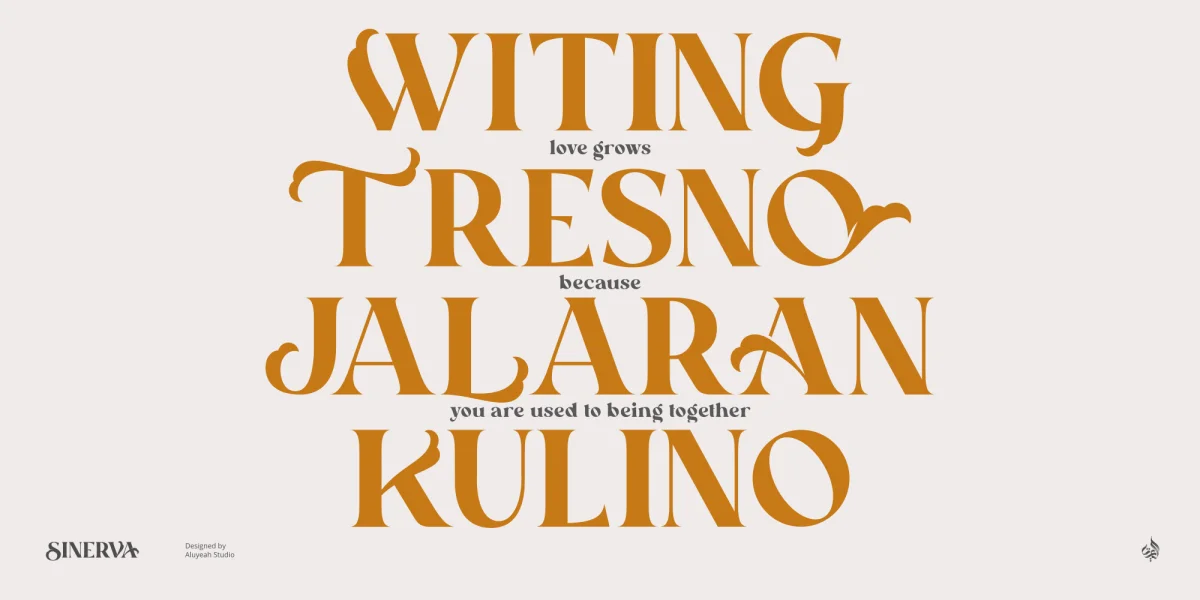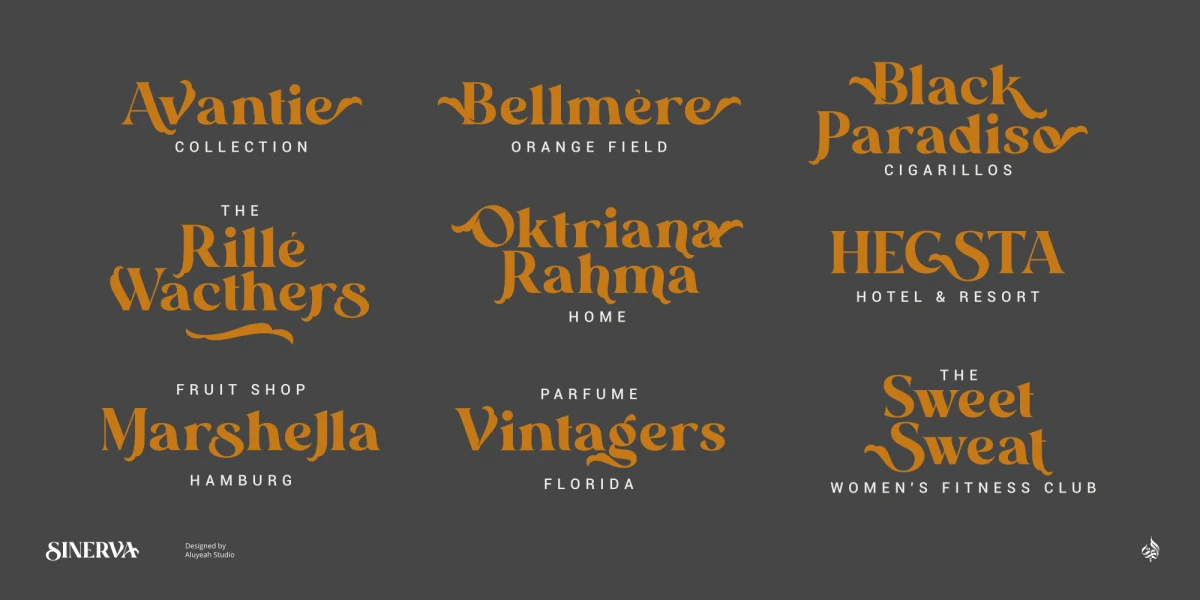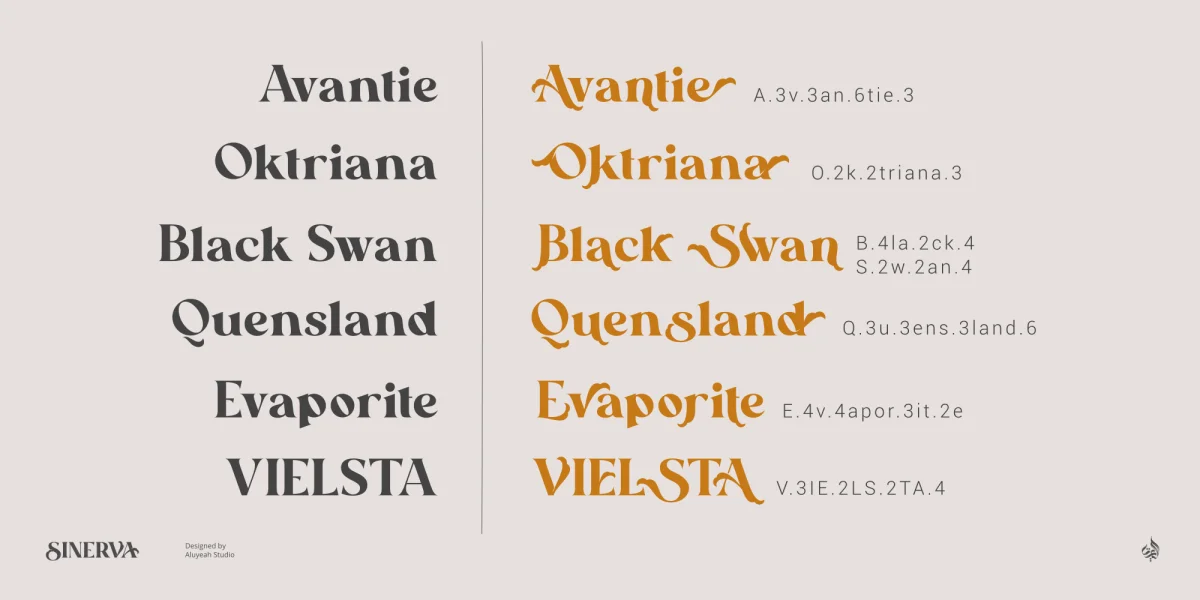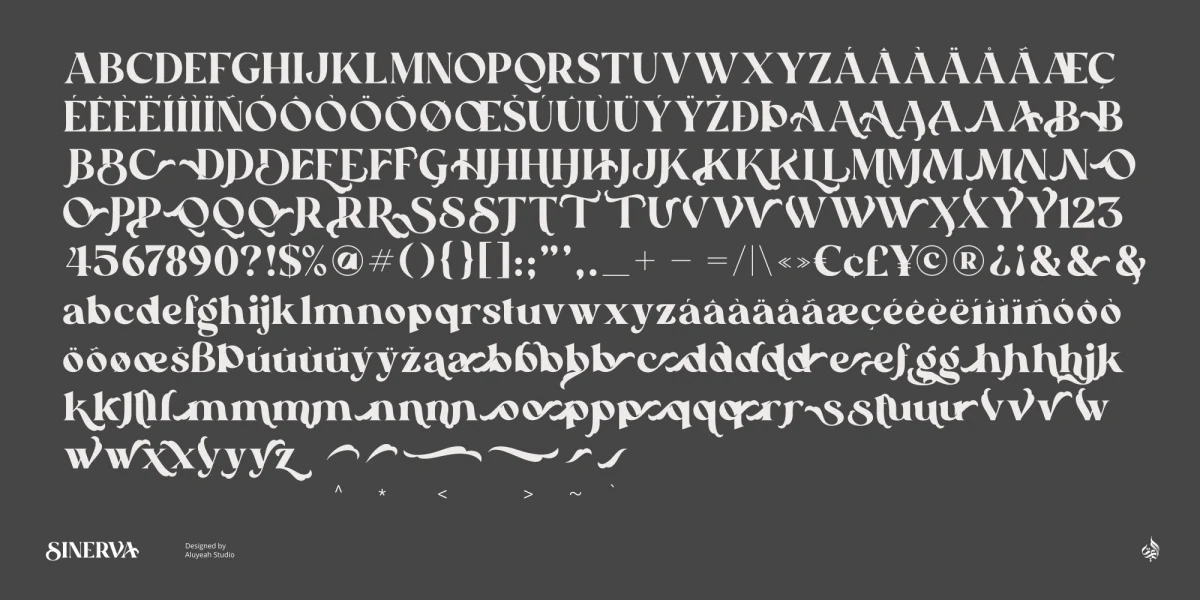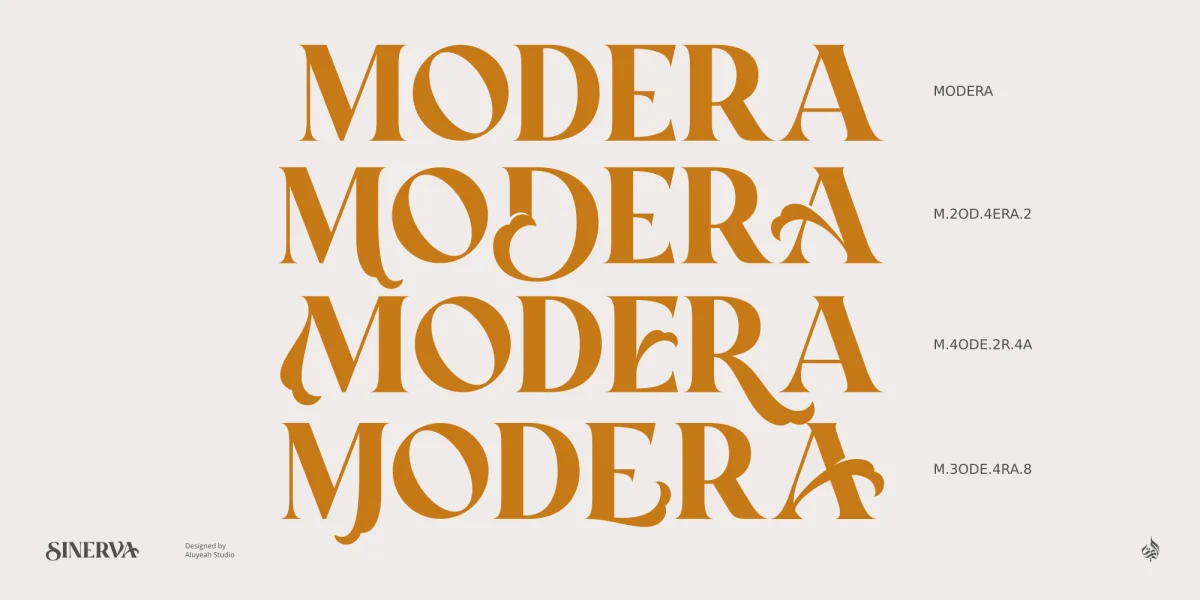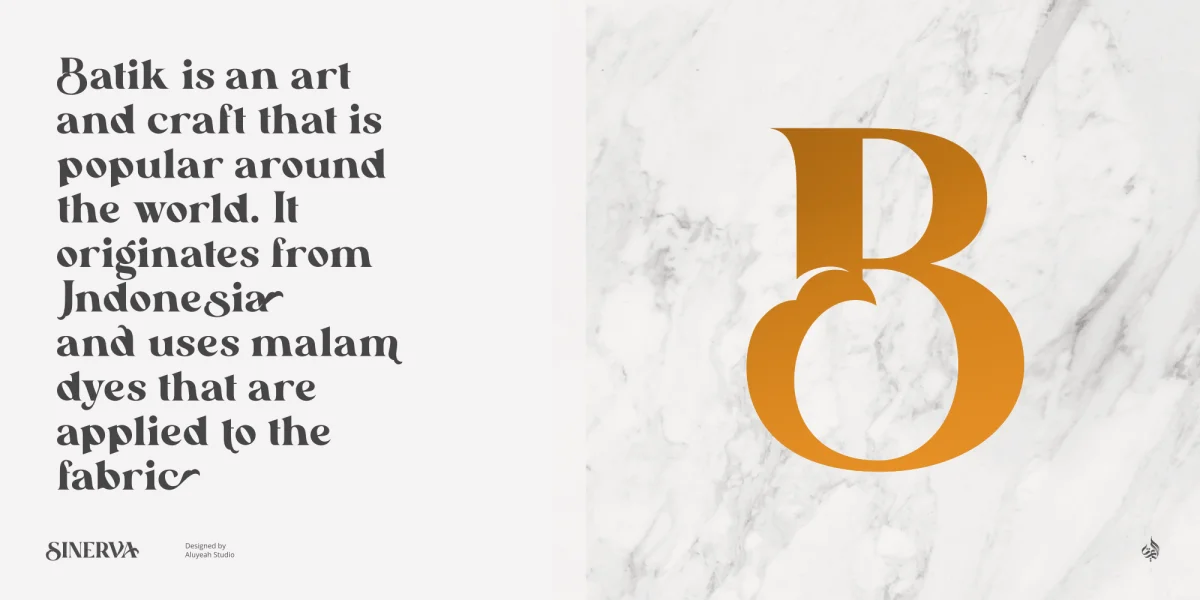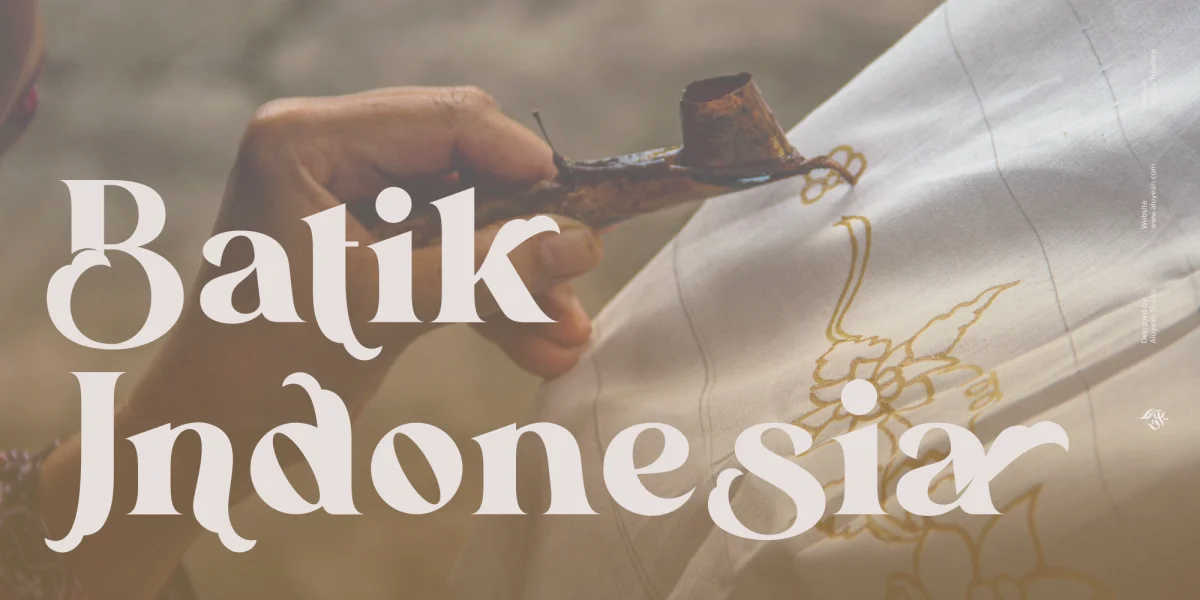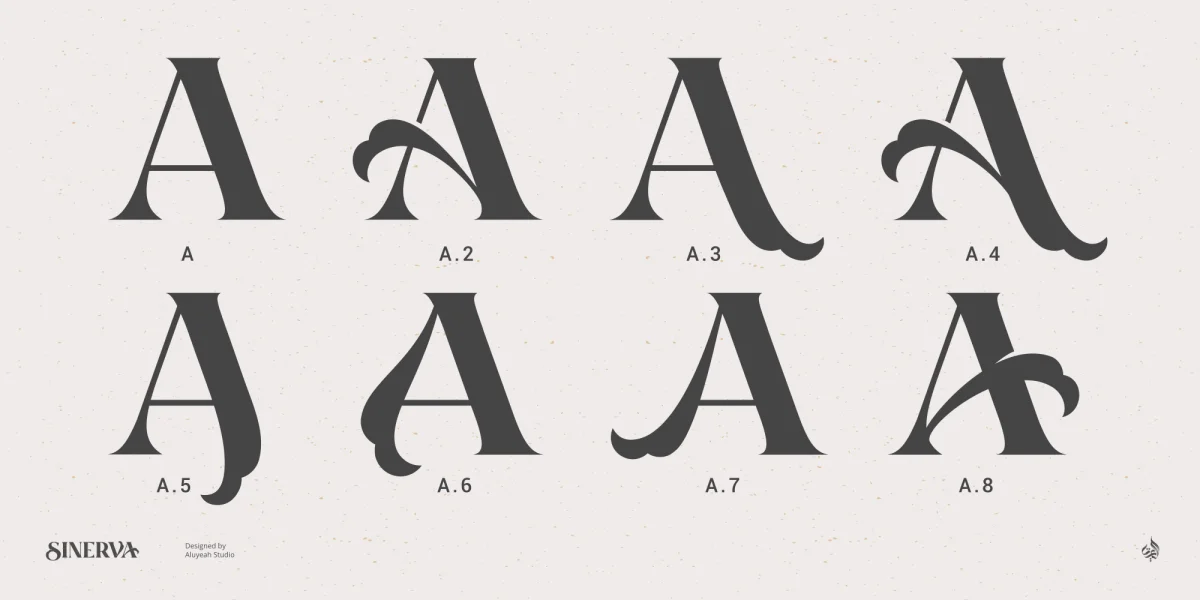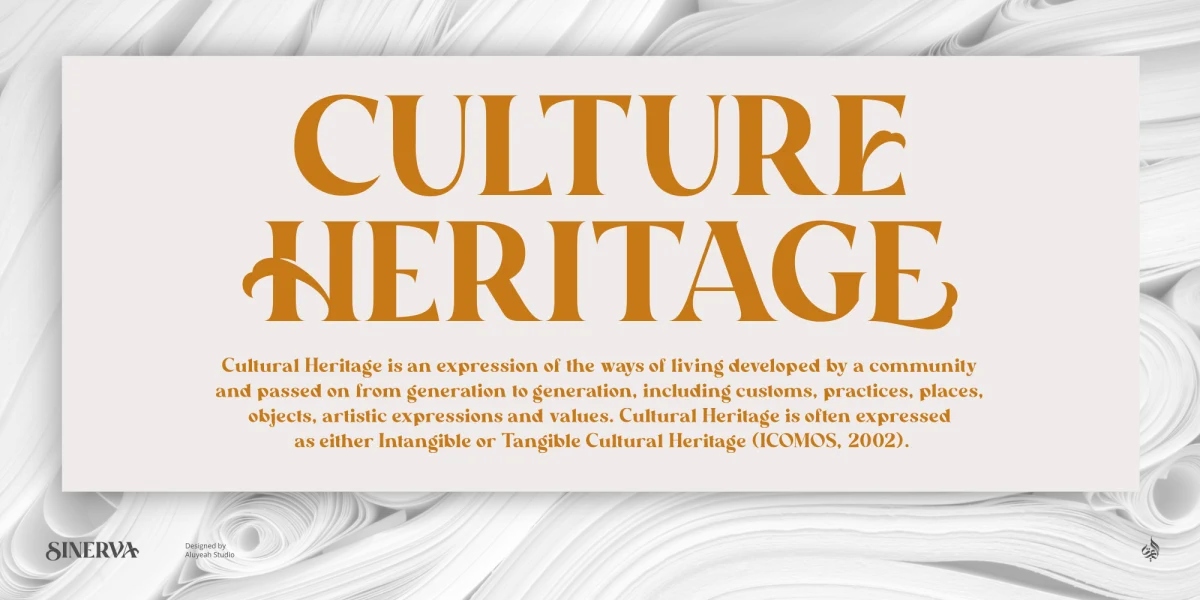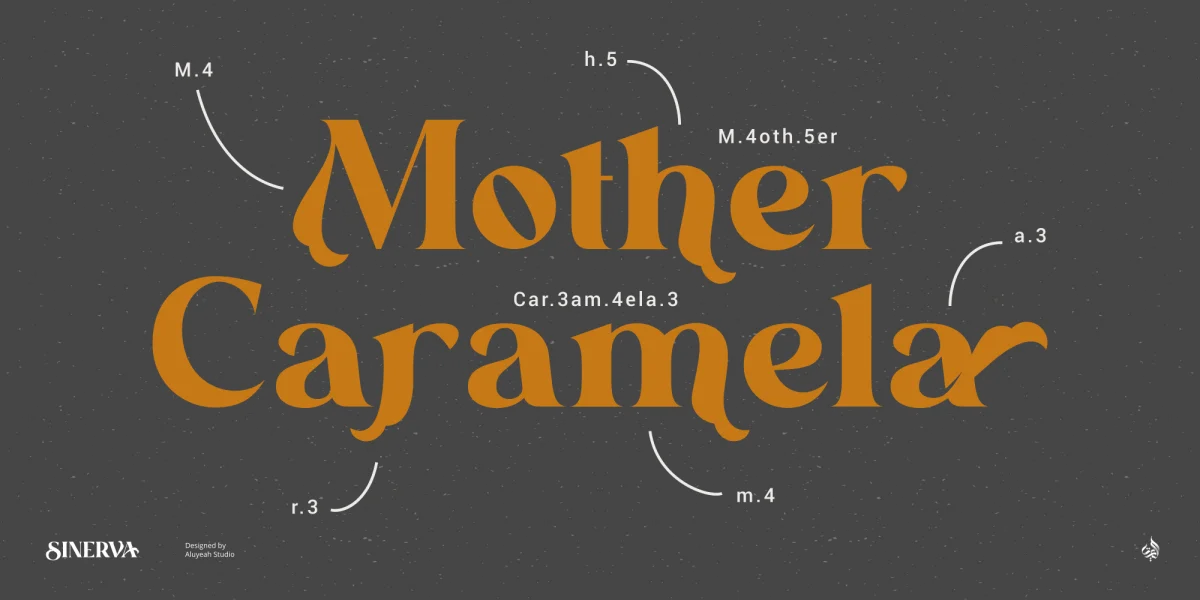
A Font by Aluyeah Studio
To get results like the preview just type S.4INERV.3A.8
This font is the result of my play with letters. Inspired by Indonesia's great cultural heritage, Batik. I wanted to create a font that has an alternative that highlights a small part of Indonesian batik culture by taking a shape like a bird's feather which is often applied to Batik. A simple, yet distinctive, elegant font that can be applied to many areas of design.
Sinerva is a quilly display typeface. Coming with 130+ stunning and super easy to use alternates.
Very suitable for magazine, headline, website, ads, product package and all type of design project you have.